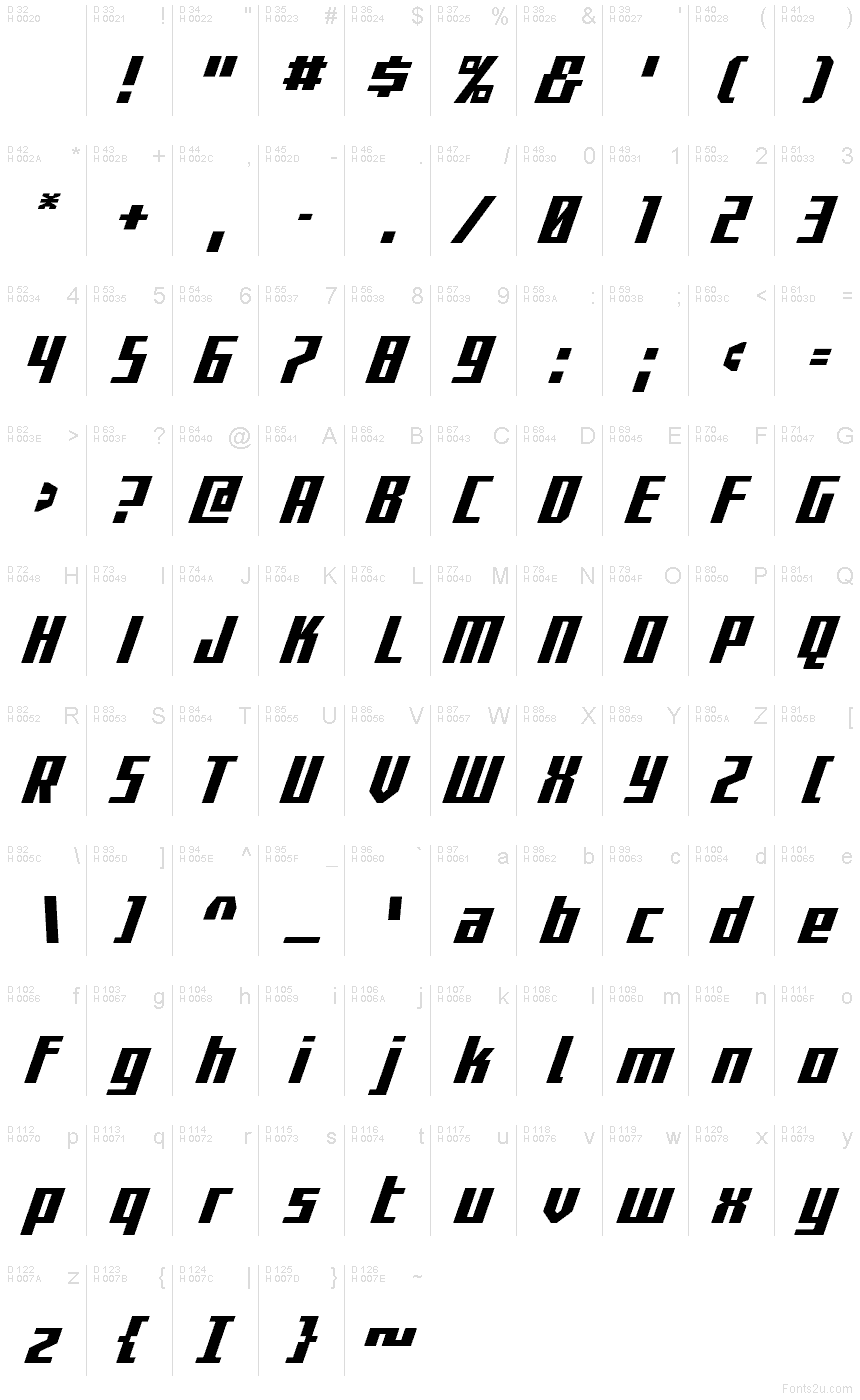
Capitol City Italic
Capitol City Italic font by Iconian Fonts is an italicized, futuristic, geometric, and sharply-angled sans-serif font. Characters of this modern and condensed techno display font are clearly defined through their clean straight lines which are joined to form unique maze-like constructions. Its visual language relates to technology, innovation, and transformation.
The free techno display font can be used for various applications including magazine covers or headlines as well as posters, paraphernalia branding and packaging design projects, logo creation and animations. It also looks great on apparel designs like T-shirts or accessories engraving. Make use of it in advertisements of futuristic gadgets or website headers and app UIs that require such visuals!